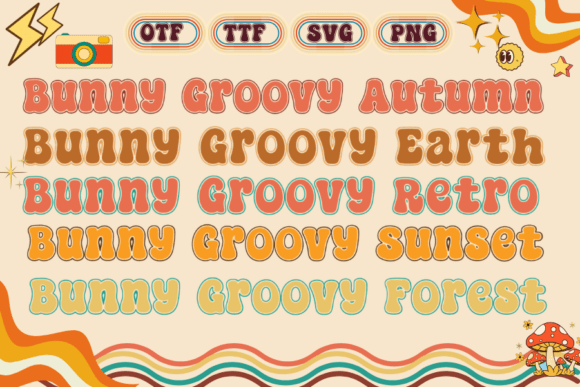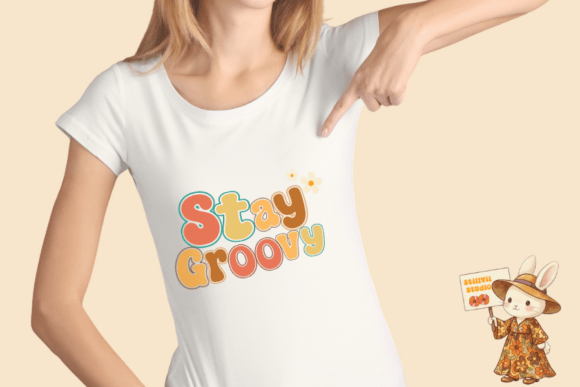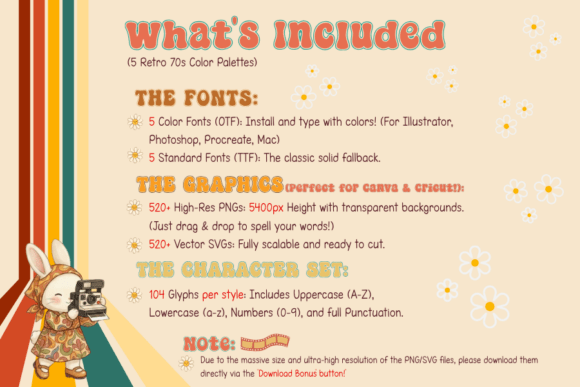
Introduction to Bunny Groovy Retro Font
Add a pop of 70s nostalgia to your projects with the Bunny Groovy Retro Color Font Bundle.
The Bunny Groovy Retro font is perfectly suited for bold apparel designs, nostalgic festival posters, and eye-catching social media branding that needs to pop Because it carries such a strong personality , you can pair this Bunny Groovy Retro typeface with a simple, clean sans-serif to let the decorative layers take center stage.
Key Features of Bunny Groovy Retro Font
Why Choose Bunny Groovy Retro Font?
Bunny Groovy Retro Font offers exceptional quality and versatility, making it a valuable addition to your design toolkit. Whether you’re creating for personal projects or commercial use, Bunny Groovy Retro Font delivers professional results.